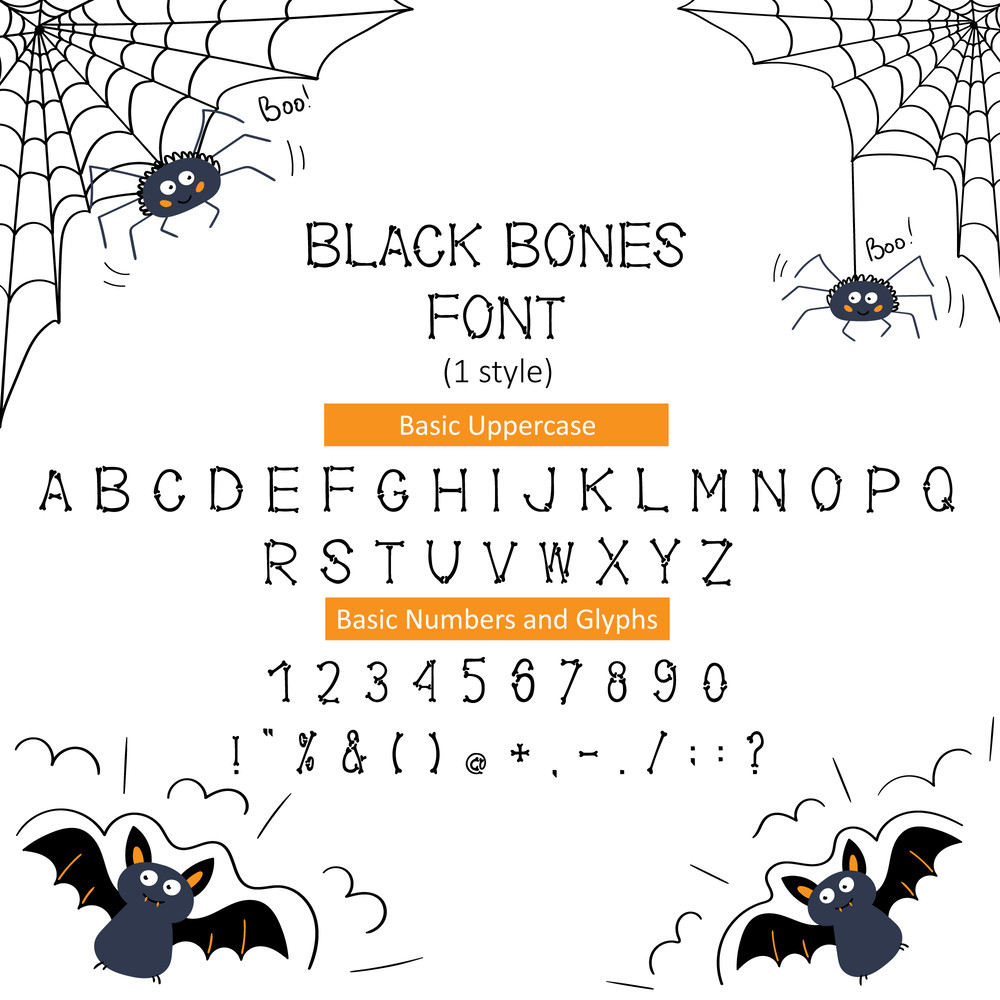
Black Bones Halloween Font
The font is suitable for a Halloween theme. Spooky skeleton font awesome can be used on T-shirts, invitations, greeting cards, and more. Application as heading or main font. The font represents the spirit of Halloween.